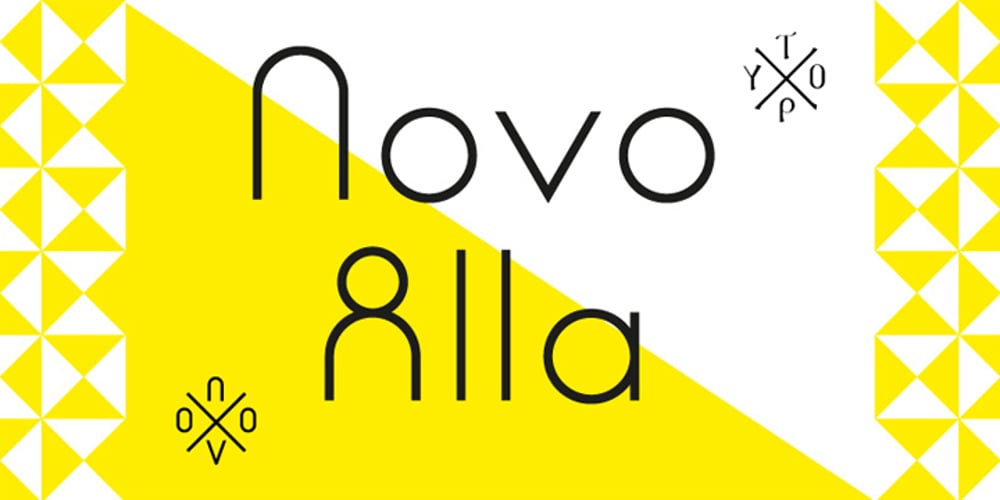
NT Novo Font Family was designed by published by Novo Typo. NT Novo contains 7 styles and family package options. An unordinary type of family: Novo Alla is part of the Novo Family (together with Novo Alla, Bila, Cela, Dada, Enno, Fika and Gigo). Although all members are also strong individuals, Novo Family is an exclusive selection which allows you to design beautiful typographic combinations. The Novo Family will take typography into a next phase of legibility.